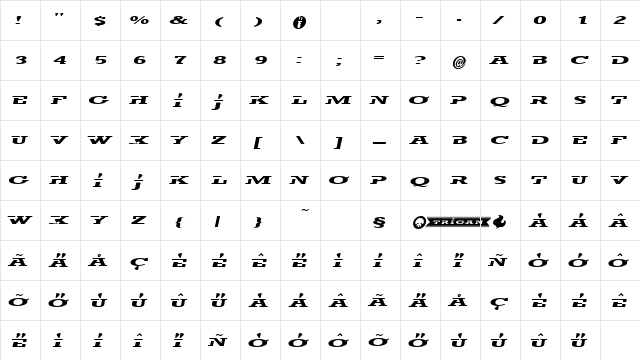
trigan Italic
Design Context for trigan Typeface
trigan takes a measured approach to typography — its balanced proportions and neutral character make it a reliable workhorse for both digital and print work. The dynamic lean of this cut emphasises speed and emphasis in any layout.
Pro Tip: Use trigan for emphasis, pull quotes, and subheadings where its slanted energy can add rhythm to the layout.